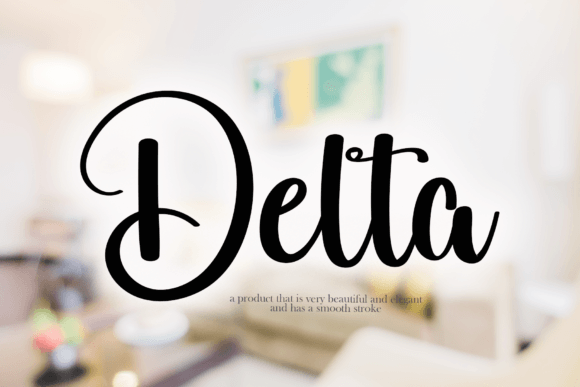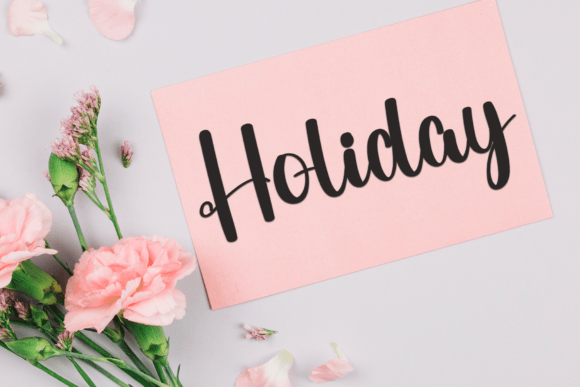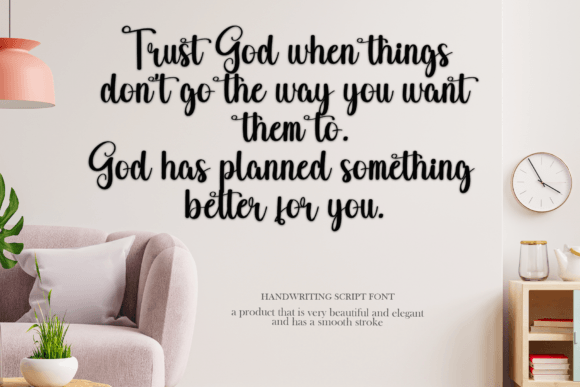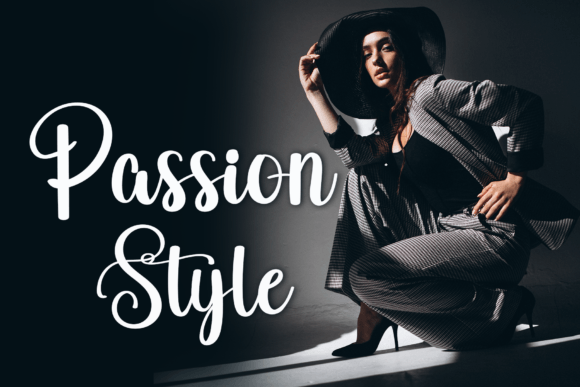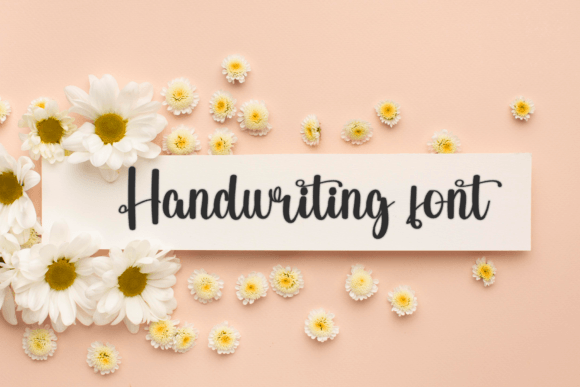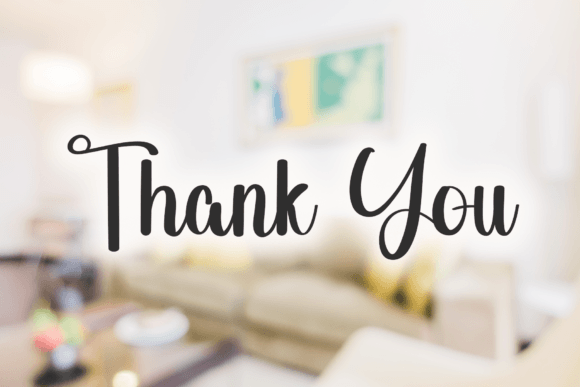
Delta Font
Introducing Delta Font
The Delta Font is a neat and beautiful handwritten typeface celebrated for its elegant touch and timeless style. This font offers a distinct and versatile option that can enhance a wide range of design projects. Its charm lies in its ability to convey a sense of elegance and timelessness with its handwritten script style.
Why Choose This Typeface?
• Elegant and Timeless: Delta adds sophistication and refinement to your designs, making it suitable for branding, invitations, posters, social media graphics, and more.
• Versatile Usage: This font provides a visually appealing choice for various creative endeavors, allowing you to infuse your designs with distinction and style.
Applications of Delta
• Branding: Use this font to create elegant branding materials that capture attention.
• Invitations: Enhance your invitations with a sophisticated style that conveys timelessness.
• Posters: Perfect for adding a stylish script aesthetic to posters and other creative projects.
The Impact of Using Delta
This font elevates your designs by making them visually captivating and memorable. It becomes a reliable tool for designers seeking to create projects that stand out with elegance. Its balanced form ensures your designs are both refined and captivating.
The Value It Brings
This typeface excels in combining contemporary design aesthetics with classic elegance. By choosing Delta, you ensure your designs are not only visually appealing but also sophisticated and unique.
This font is also ideal for various creative projects beyond traditional uses. It can enhance digital designs with its elegant flair, making it suitable for websites, brochures, or mobile interfaces. The Delta Font adapts well to different screen sizes while maintaining its charm. As design trends evolve, this font remains relevant due to its timeless appeal, balancing style with functionality effectively.